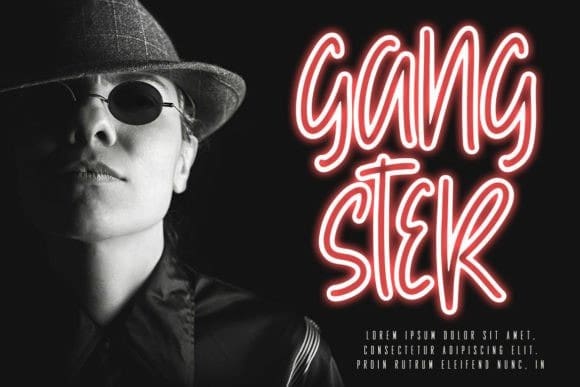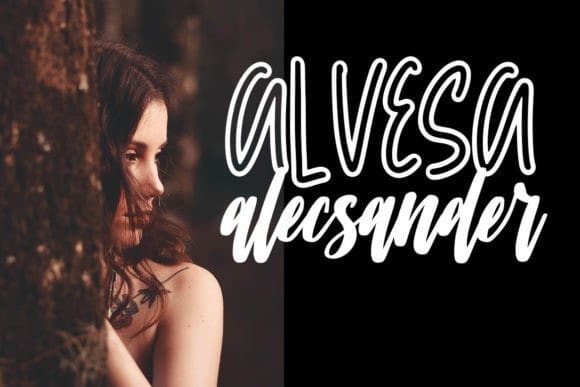
Breaky Double Line Font
Breaky Double Line Font is a cool and unique handwritten display font. It looks beautiful on a variety of designs requiring a personalized style.